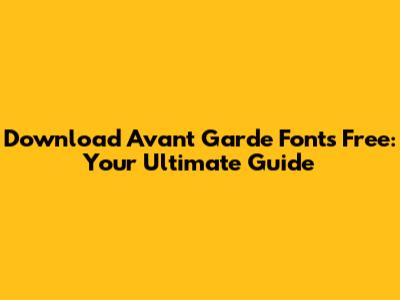
Hey guys! Are you on the hunt for a stylish and iconic font that screams modernity and elegance? Look no further than the Avant Garde font! It's a true classic, instantly recognizable, and perfect for a wide range of design projects. And the best part? You can often download Avant Garde fonts for free. In this guide, we'll dive into everything you need to know about getting your hands on this amazing typeface without spending a dime. We'll explore where to find free downloads, the different variations available, and how to use Avant Garde effectively in your designs. So, let's get started and unlock the secrets to adding a touch of Avant Garde flair to your creative endeavors! We will discuss where to find them and how to use them effectively.
Understanding the Avant Garde Font Family
First off, what exactly is the Avant Garde font, and why is it so popular? The Avant Garde family, designed by Herb Lubalin and Tom Carnase, is characterized by its distinctive geometric letterforms. It's a sans-serif typeface, meaning it lacks the small decorative strokes (serifs) found on fonts like Times New Roman. Instead, Avant Garde boasts clean, bold lines and a unique, instantly recognizable aesthetic. Think of those iconic logos and headlines that pop out at you – chances are, you've seen Avant Garde in action! It's a versatile font, well-suited for both display and body text, although it truly shines in headlines, titles, and short bursts of text where its unique character can take center stage. The font comes in various weights, from light and delicate to bold and impactful. Some variations also include different styles, such as condensed and oblique versions, expanding the font's versatility even further. Understanding these different weights and styles is key to choosing the right one for your project. Consider the overall tone and message you want to convey. A lighter weight might be suitable for a minimalist design, while a bolder weight can grab attention in a more dramatic way. The Avant Garde font family's legacy stems from its modern and cutting-edge design, making it a favorite among designers and brands. It's a go-to choice for those seeking a contemporary look that is both stylish and functional. You'll find it everywhere, from magazines and websites to posters and product packaging. This is a testament to its enduring appeal and its ability to adapt to various design contexts. The Avant Garde font has the power to transform the look and feel of any project.